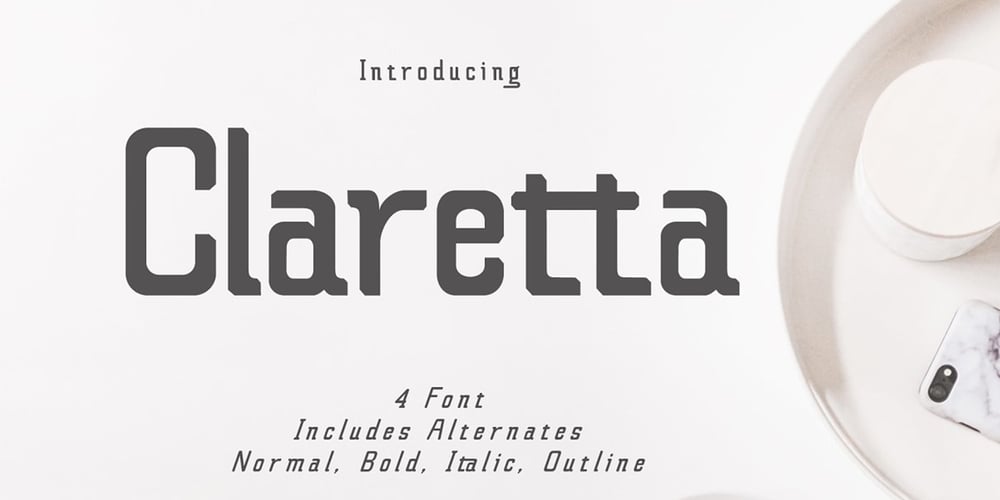
Claretta Font Family was designed by Kurniadi Saputra and published by Cooldesignlab. Claretta contains 4 styles and family package options. Claretta is a Family Font full of modern styles. It comes with a completely new set of letters & glyphs, all filled with love. This font has 4 Styles: Normal, Bold, Italic & Outline.However, Claretta offers a futuristic design approach and sharp personality.Created & designed for Design purposes such as Titles, Logos, Games, Applications, Films, Posters, T-shirts, etc.Mac users can use the Letter Book, and Windows users can use Character Maps to view and copy additional characters to be included in your favorite text editor / application.I hope you enjoy this font. If you have questions, don’t hesitate to give me a message :)CooldesignLab,